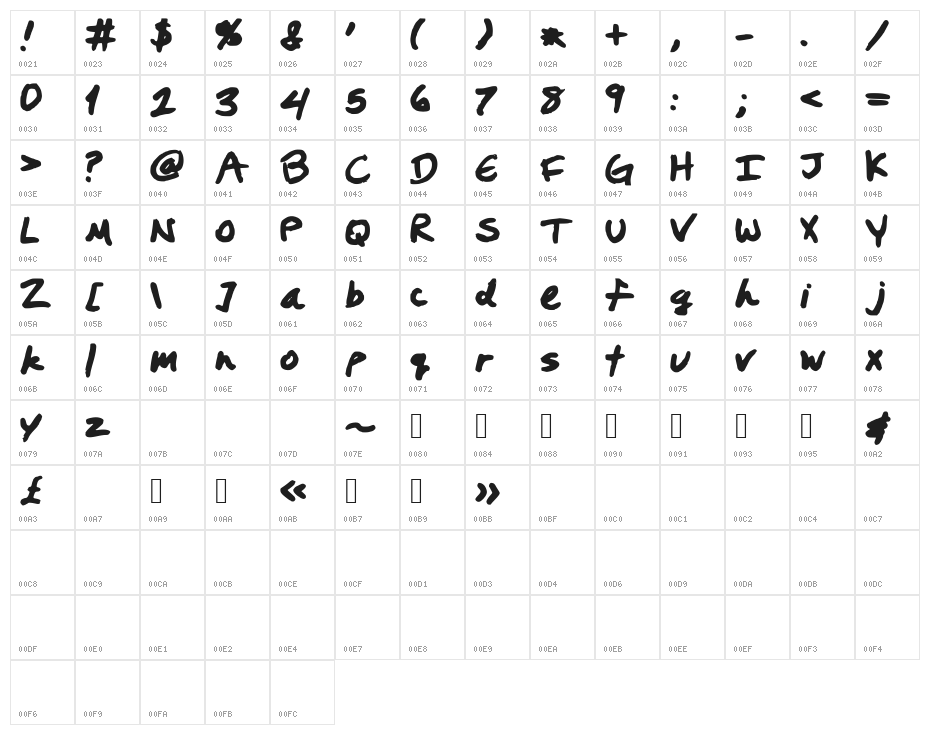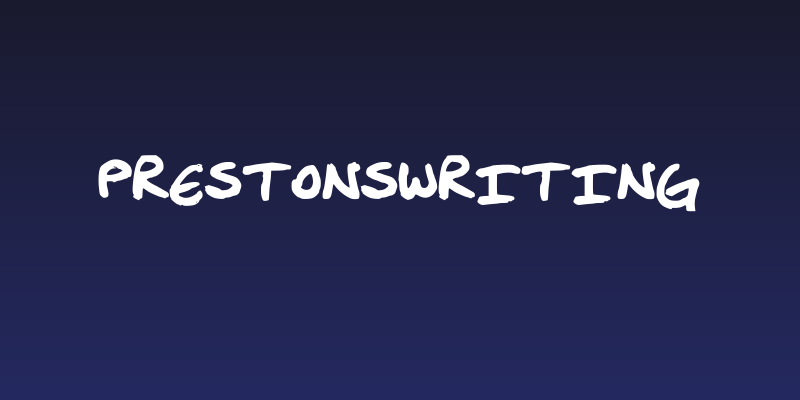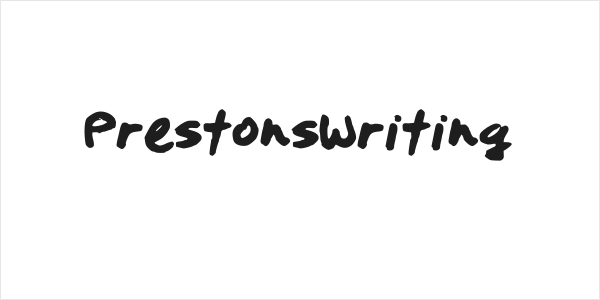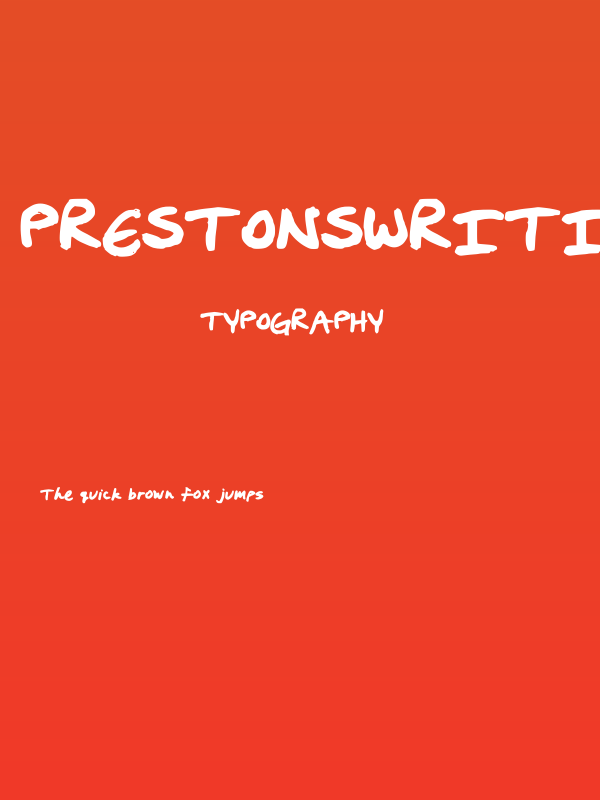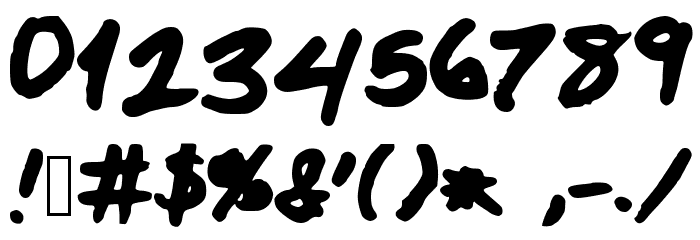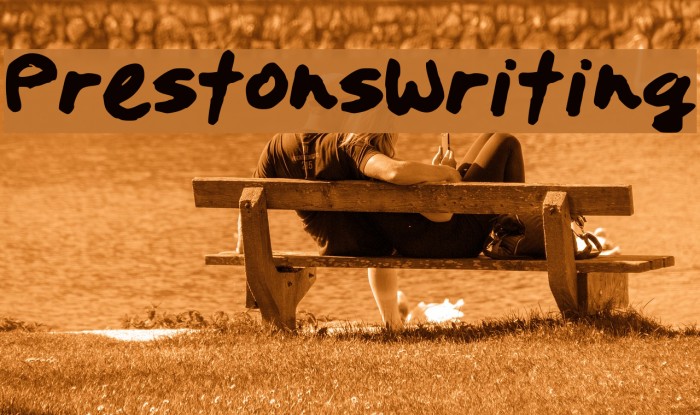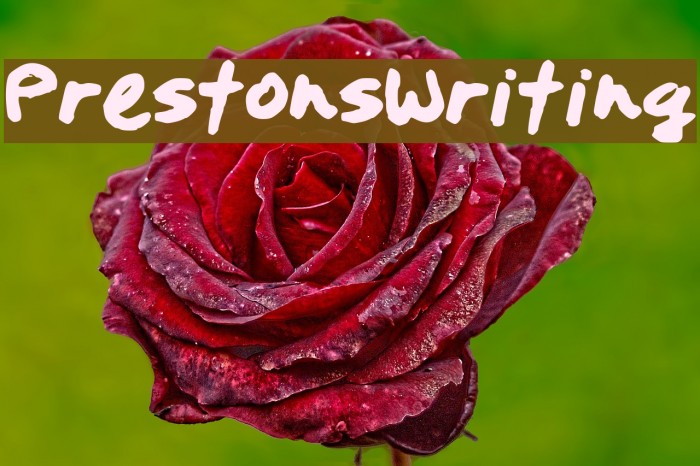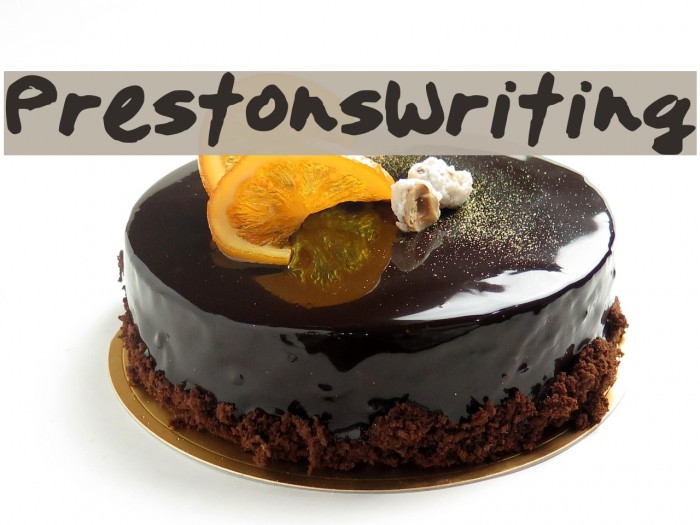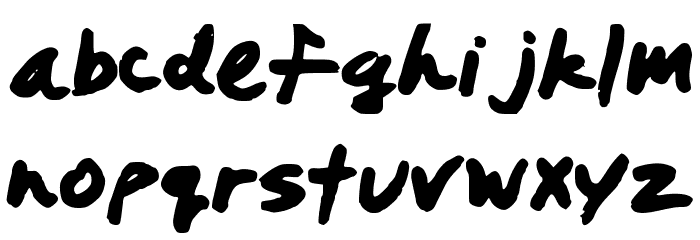
PrestonsWriting Font
PrestonsWriting Description
This font features a bold, handwritten style with a playful and casual appearance. The letters are thick and slightly irregular, giving a dynamic and energetic feel. The uppercase and lowercase characters maintain a consistent style, with rounded edges and a slight slant that adds to the informal aesthetic. The numbers and special characters follow the same design principles, ensuring uniformity across all elements. This font is well-suited for projects that require a personal touch or a creative flair, such as invitations, posters, or branding materials. The overall look is approachable and friendly, making it ideal for conveying warmth and personality.